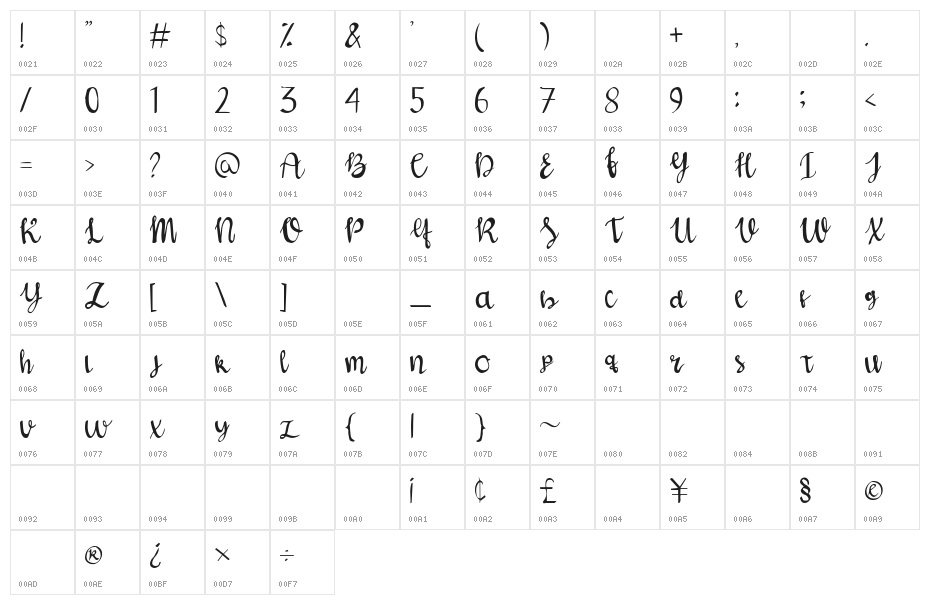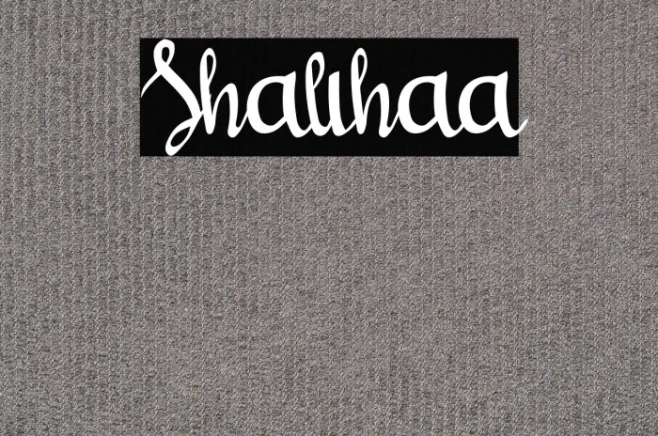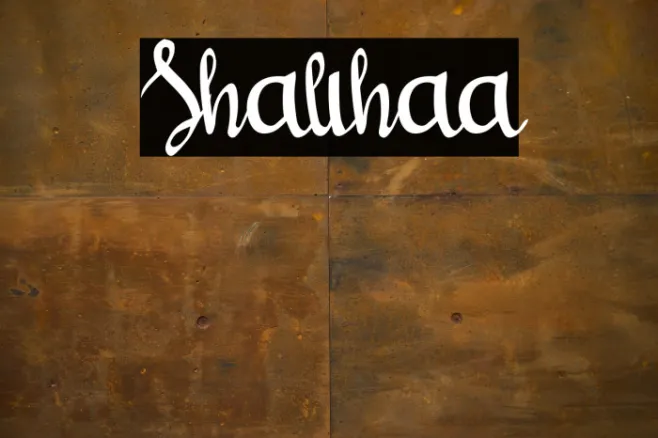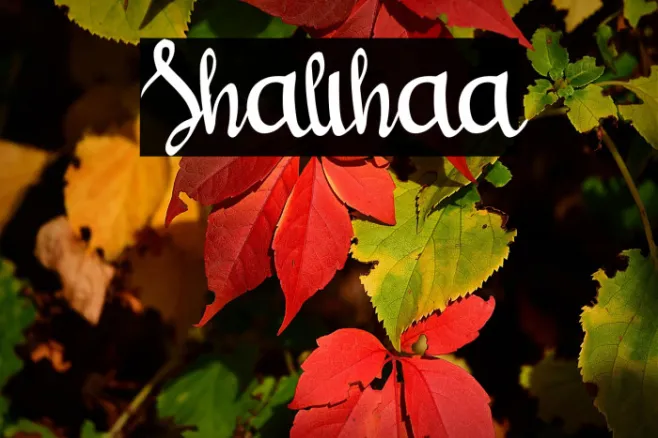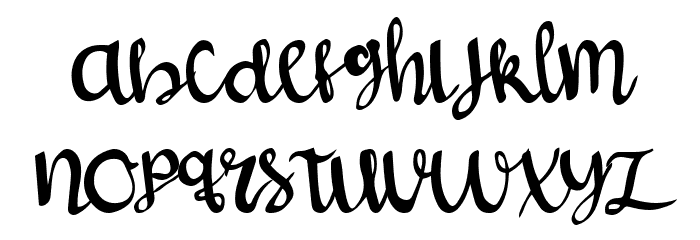
Shalihaa Font
Shalihaa Description
This font features a lively and flowing script style that exudes elegance and creativity. The letters are characterized by their smooth, cursive strokes and a playful, handwritten appearance. The uppercase letters are bold and dynamic, with a slight slant that adds a sense of movement. The lowercase letters maintain a consistent flow, complementing the uppercase with their graceful curves. Numbers and special characters are designed with the same fluidity, ensuring a cohesive look across all text. This font's unique style makes it perfect for projects that require a personal touch.